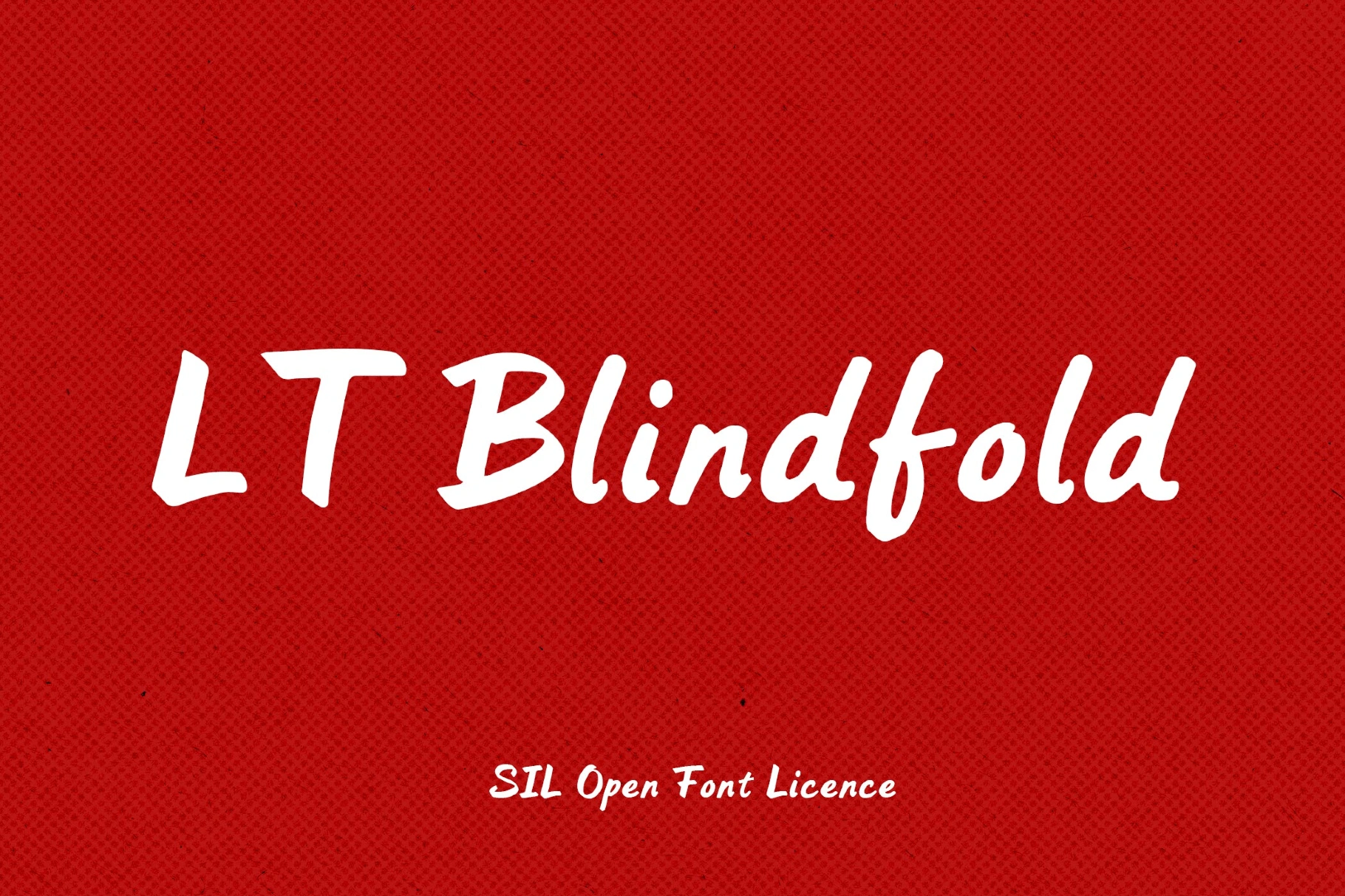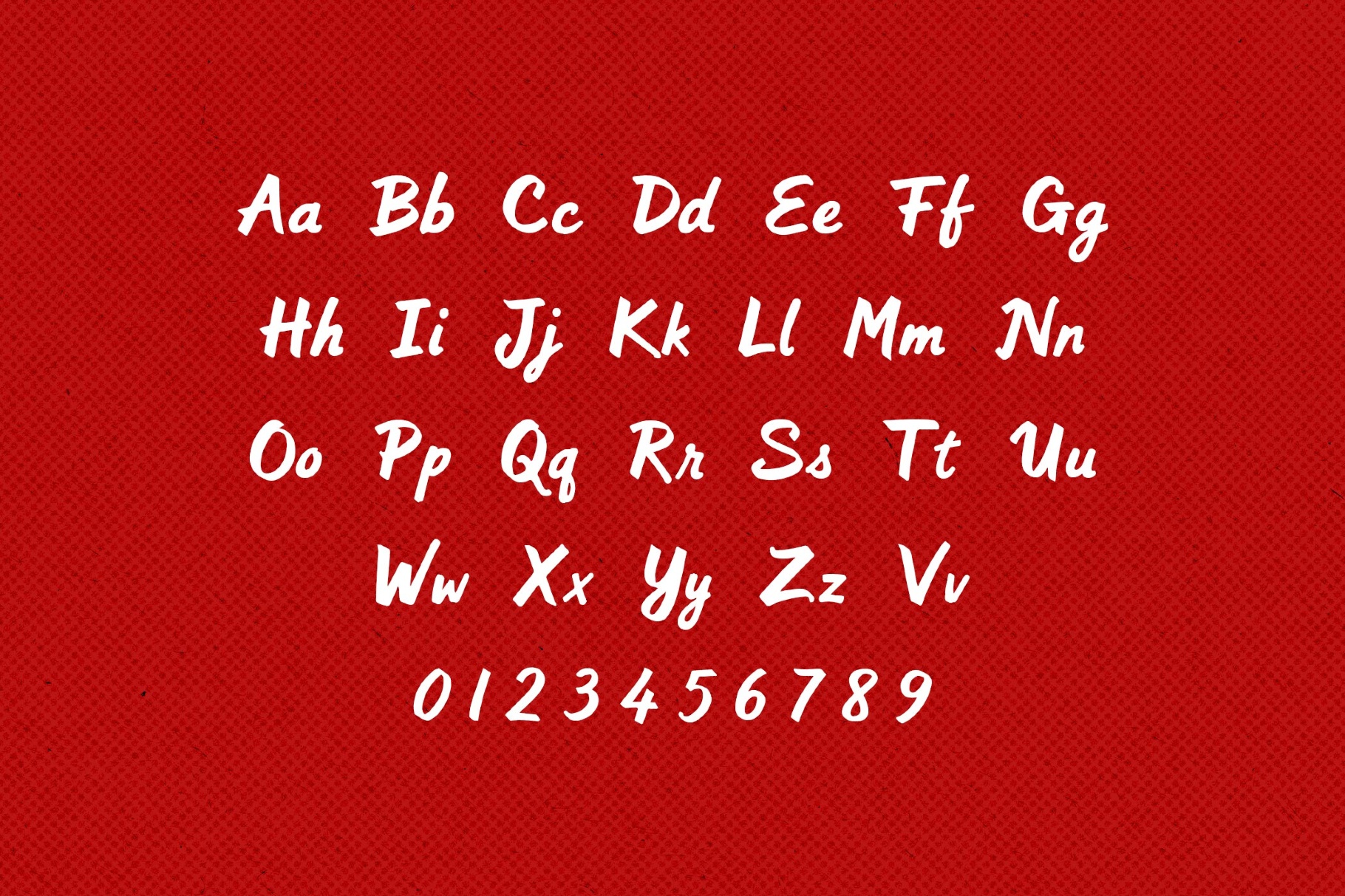
LT Blindfold Font
LT Blindfold revives 1950s soda-bar signage and rockabilly record sleeves — thank the bold curves and swinging strokes for that. Reach for it in music and club posters, bar logos, nostalgic packaging labels, album artwork, movie-style title cards, edgy branding, type-led merchandise, streaming thumbnails, event invitations, and social graphics.